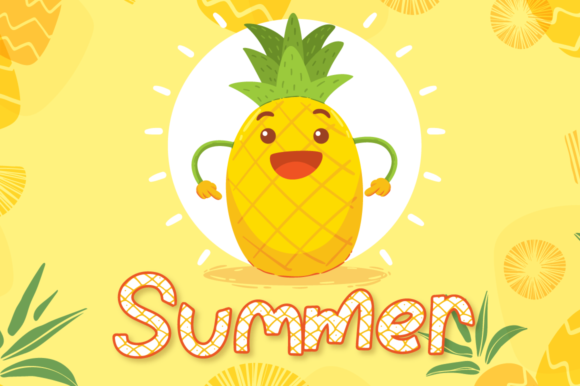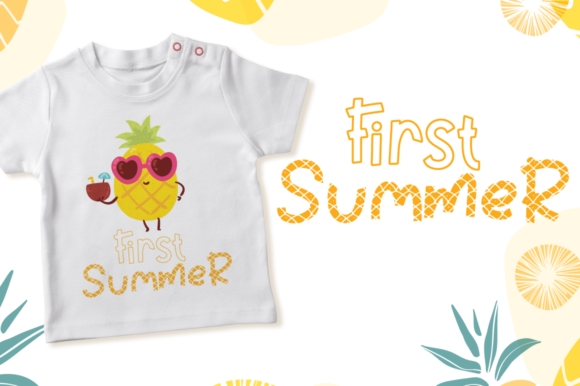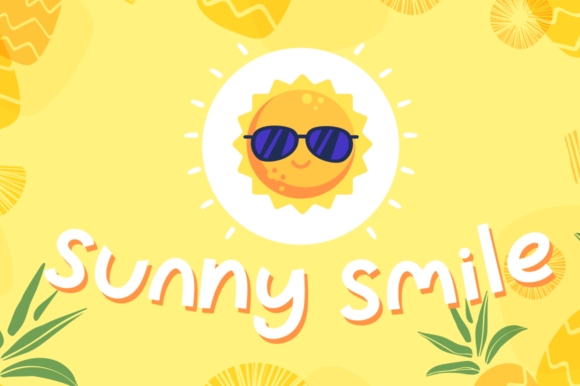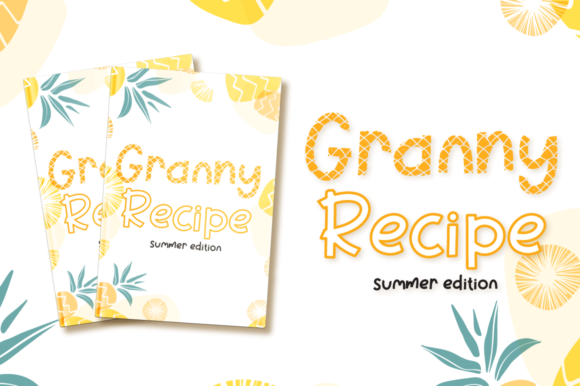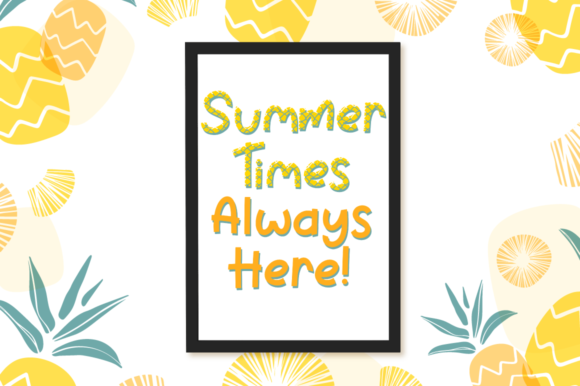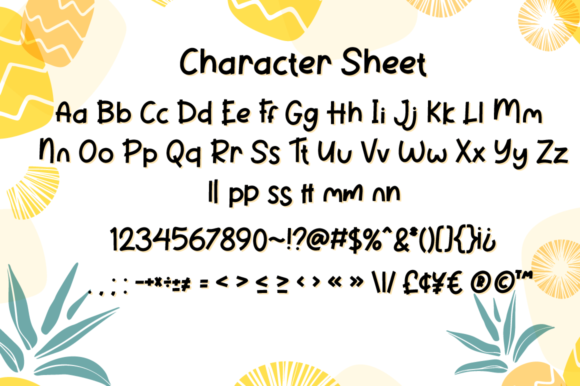
Introduction to Pineapple Party Font
Pineapple Party is a sweet and colorful display font.
Its natural and friendly style makes it incredibly fitting to a large pool of designs The only limit is your imagination.
Key Features of Pineapple Party Font